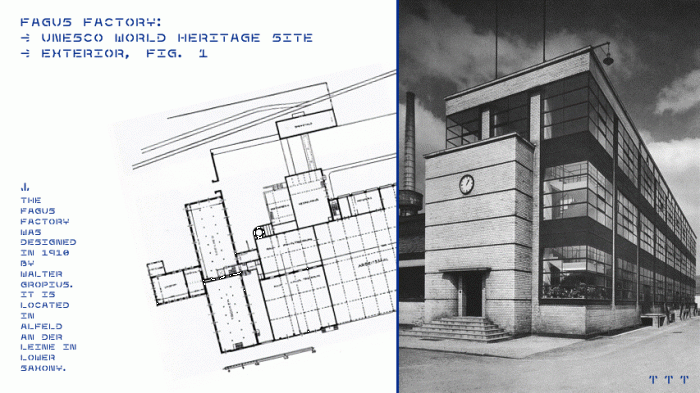
Manufaktur
The cyanotype was developed in 1842 by Sir John Herschel. This process, commonly used for blueprints, involved placing an object onto a surface and covering it in a solution of Iron (III) salts. Once the solution is exposed to ultraviolet light, the Iron (III) salts are converted into Iron (II) salts. After exposure, the suface is washed and the water reacts with the Iron (II) salts to form a Prussian Blue pigment that blueprints are known for.
Manufaktur is a monospaced typeface and while it has upper and lower case letters, it is really unicase. Manufaktur is intentionally stripped of most characters, coming with only the most essential. The idea being that Manufaktur has the bare minimum, but is still functional as a typface. It was designed with the intentions to be used in a machine shop more than on a page.
Notes:
Manufaktur is set in #002c8c, as a reference to blueprints. I had wanted to use Pantone's Prussian Blue (#003153) but it was too dark.
Some of the stenil lines (C, J, O, Q, U, 0, and 2) were made using white bricks. I had experimented ways to get the stencil lines without using white bricks, but it looked much cleaner with them. Being a color font, you should be able to change the color of the white bricks to mach your background. It's not ideal, but it's what looked the best.
the 6 looks like Б
and S looks like 5